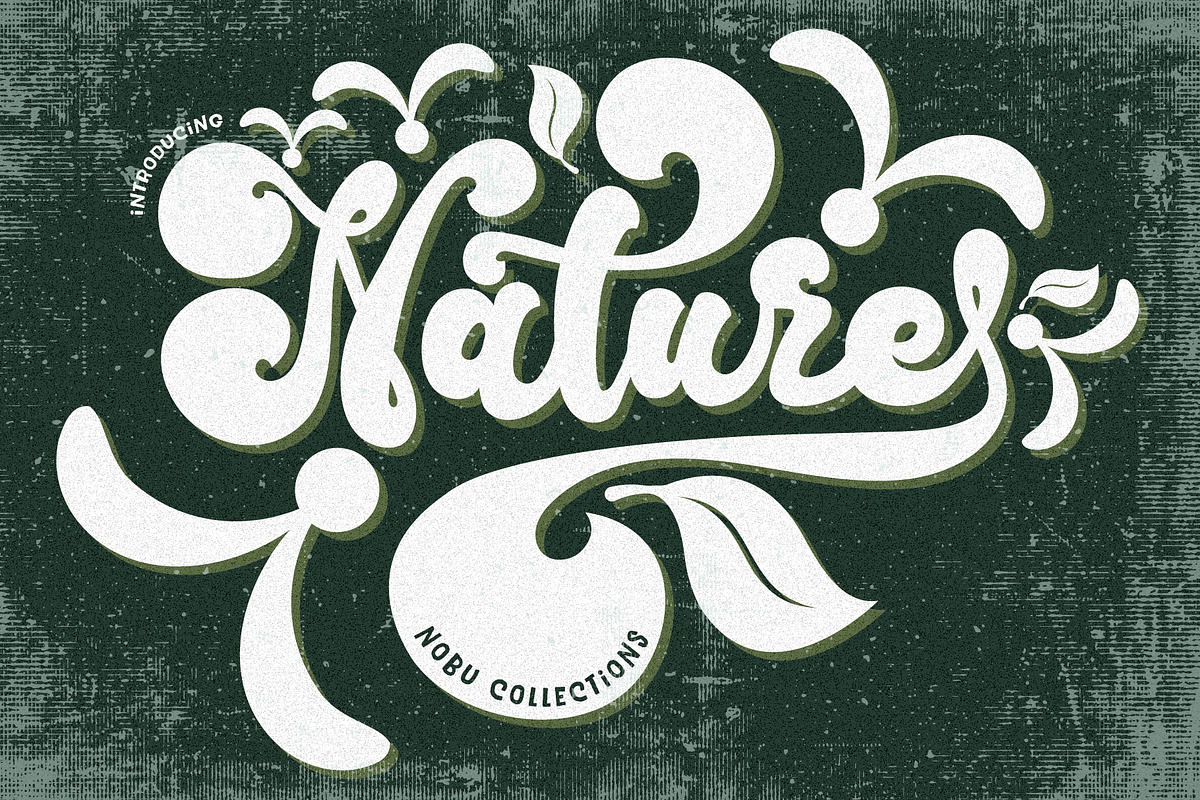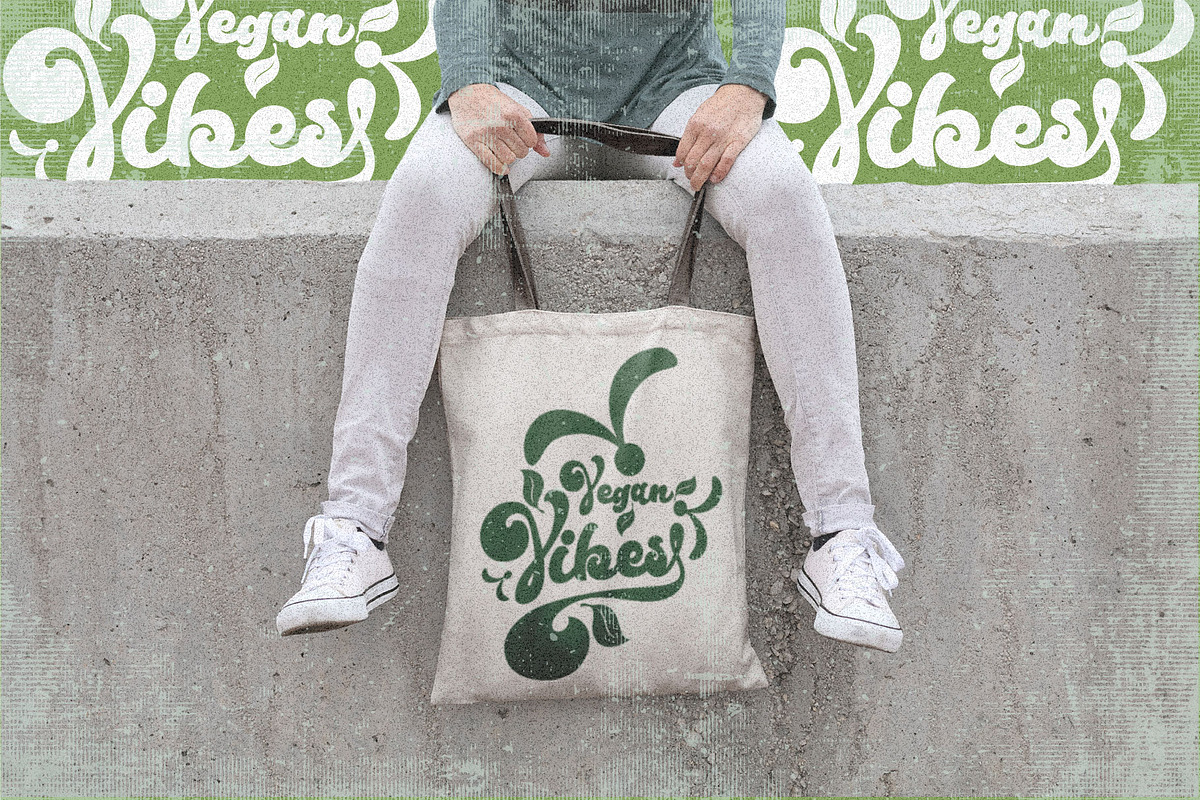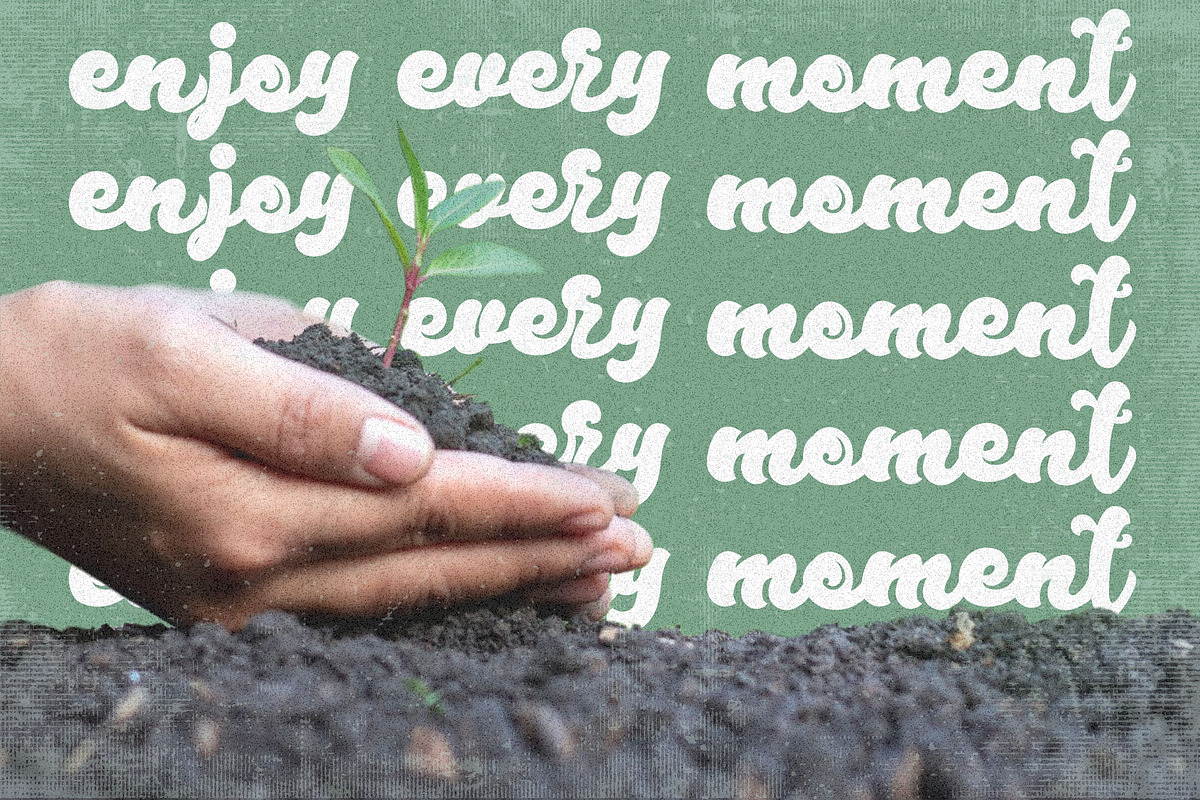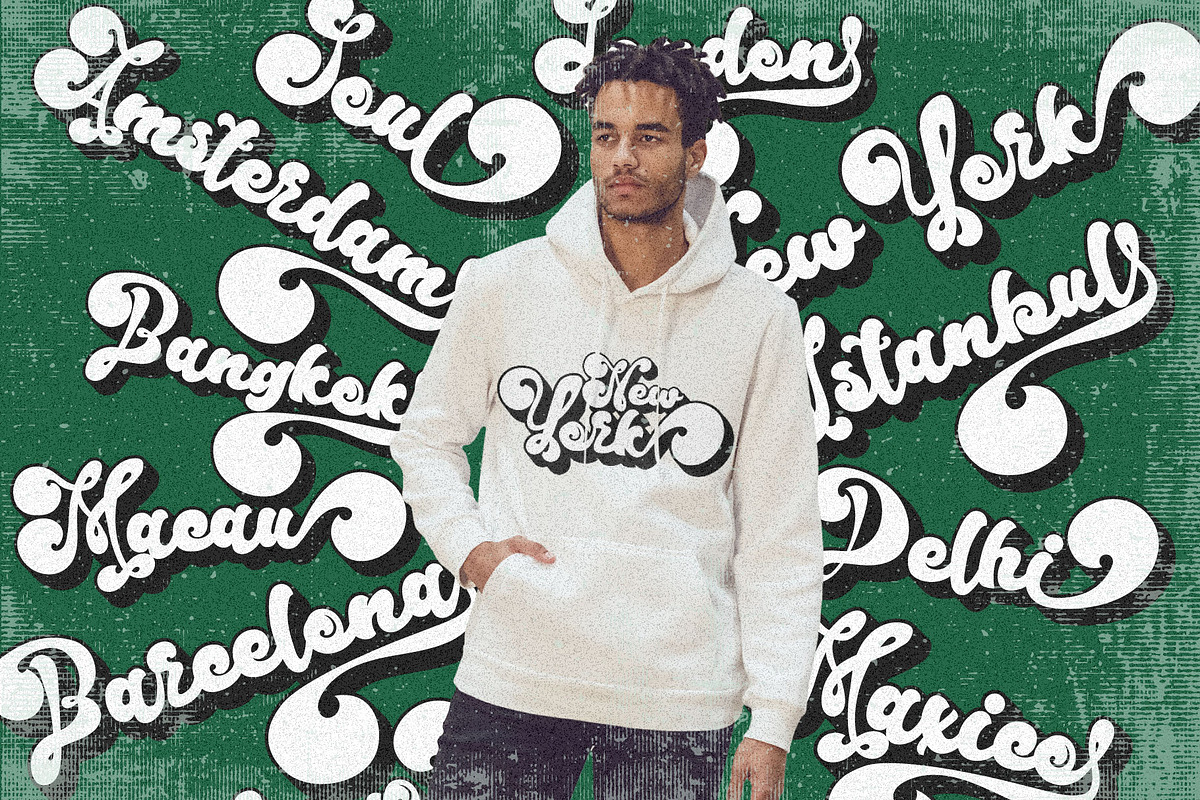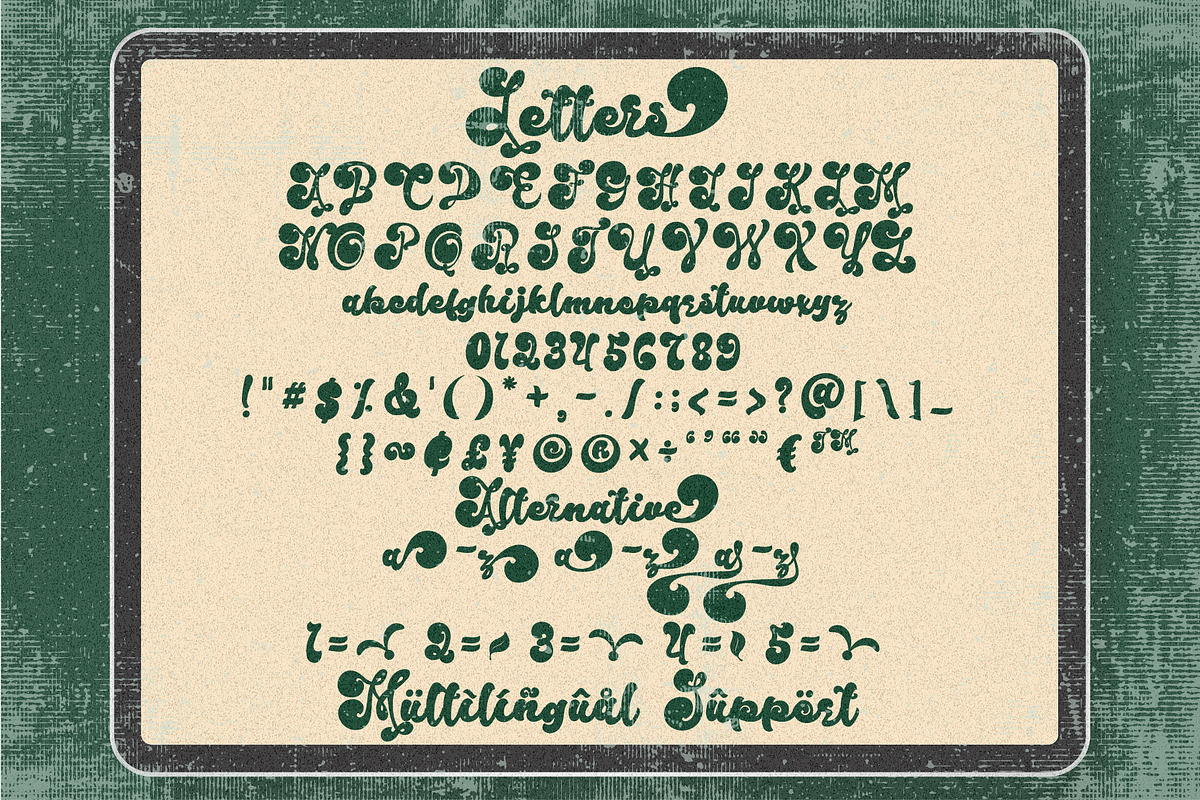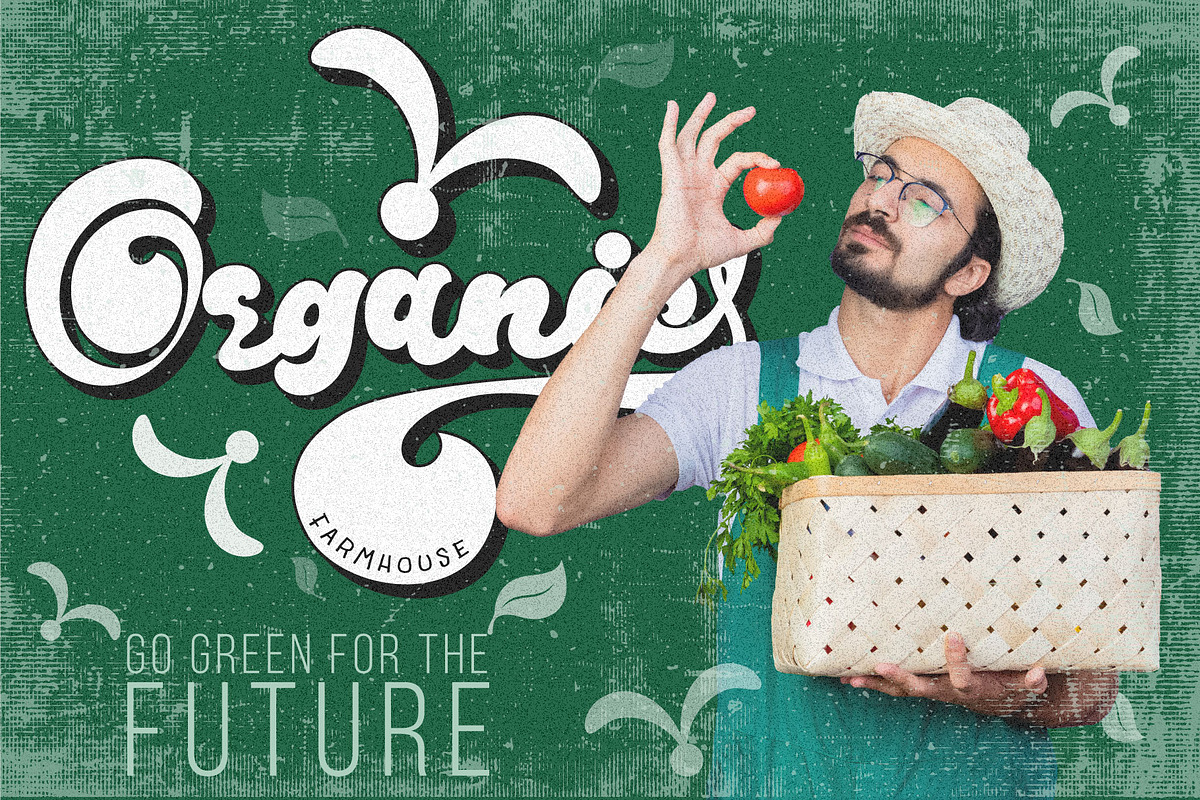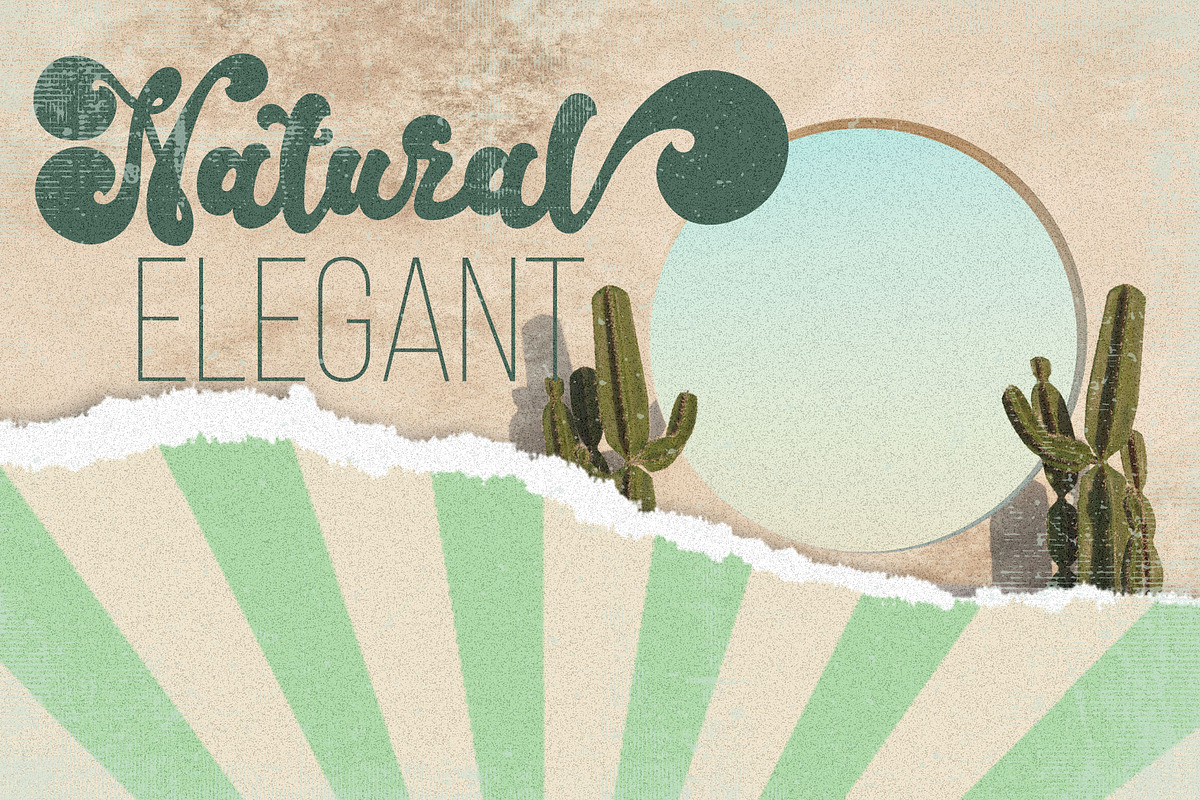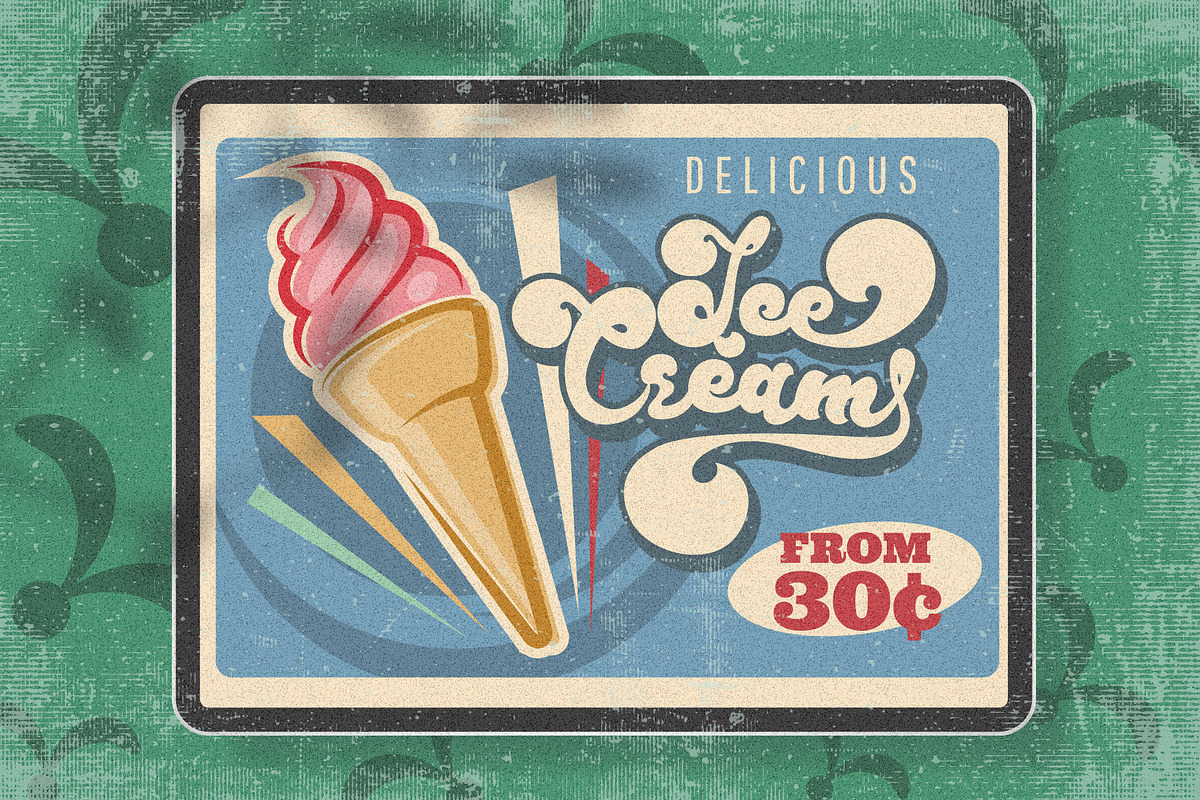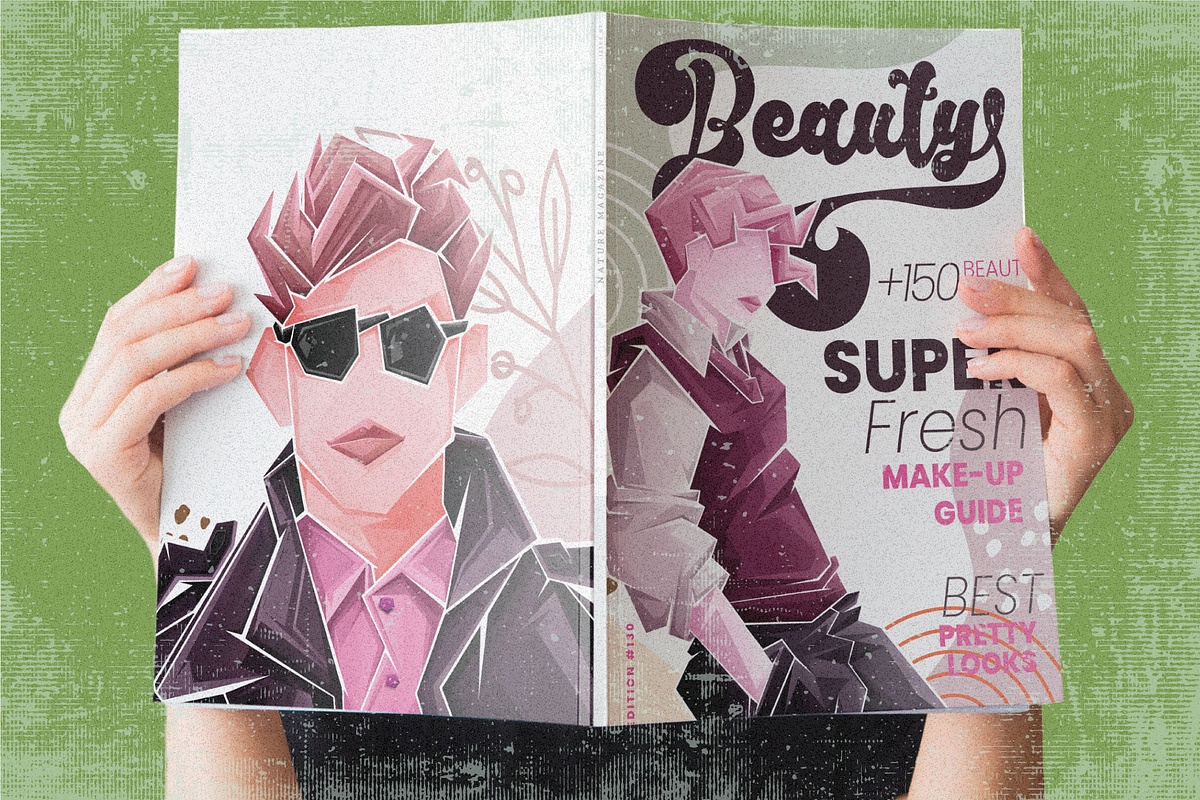
Nature Font
Nature is a harmonious blend of retro style and vegan inspiration. This font encapsulates the essence of nature's beauty while embracing a timeless, nostalgic design. Perfect for eco-conscious projects, it evokes a sense of sustainability and organic charm. From vegan brands to retro-themed campaigns, this font adds a unique touch.